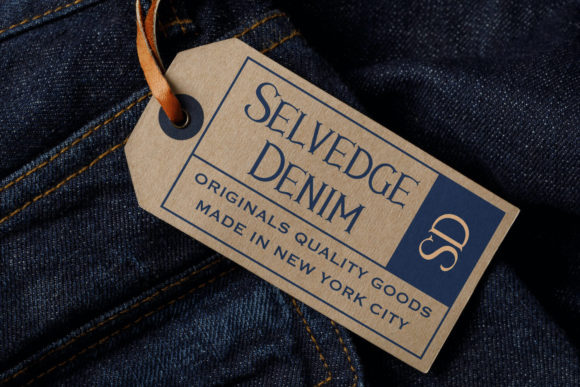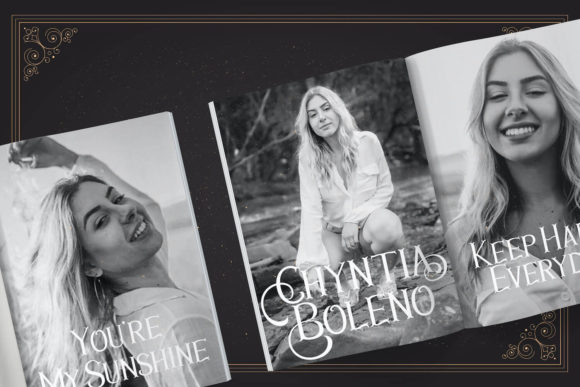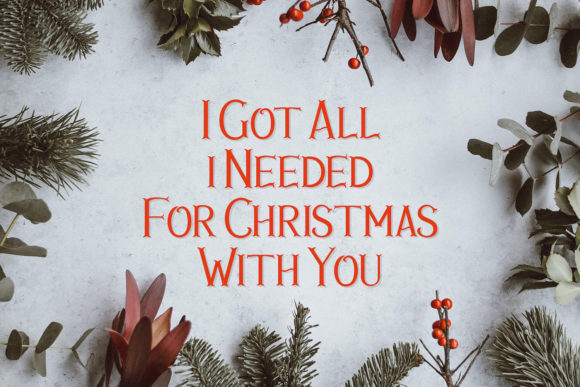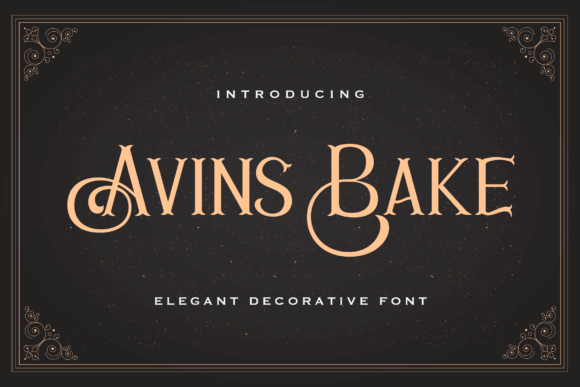
Introduction to Avins Bake Font
Avins Bake is a beautiful and modern serif font.
Fall in love with its incredibly distinct and timeless style and use it to create spectacular designs This font is PUA encoded which means you can access all of the glyphs and swashes with ease.
Key Features of Avins Bake Font
Why Choose Avins Bake Font?